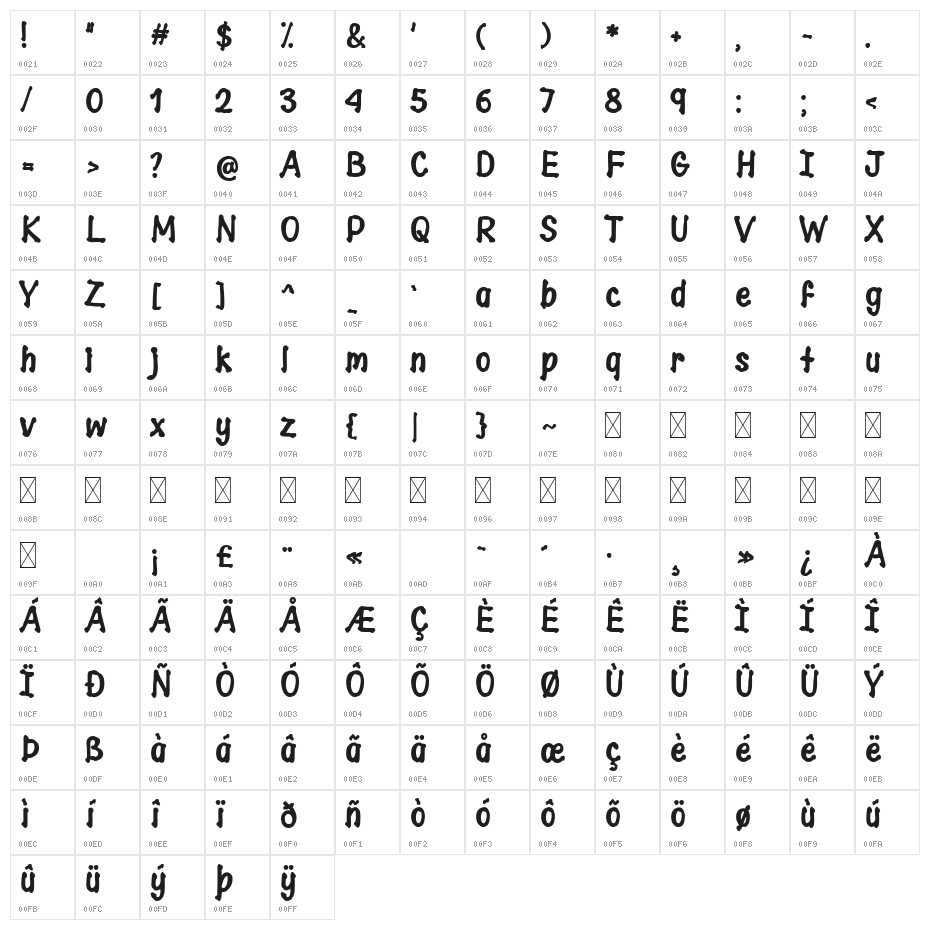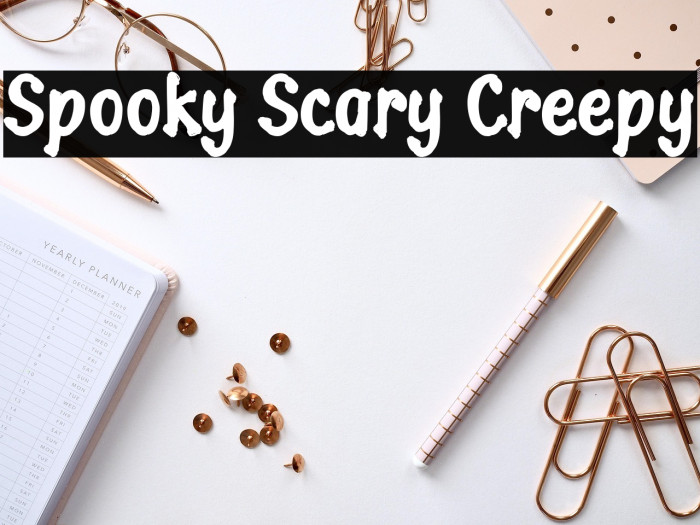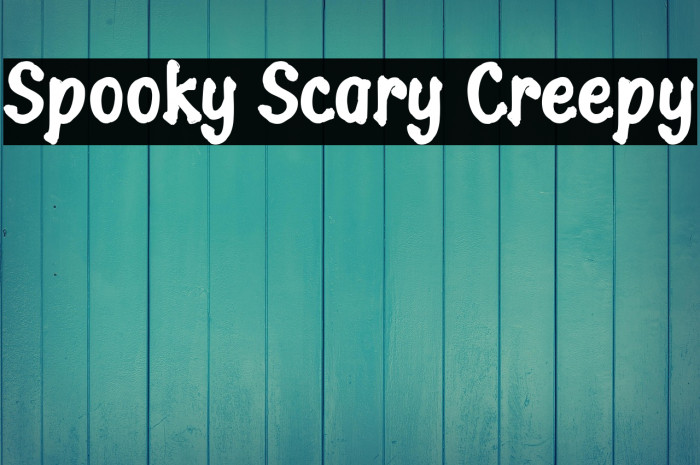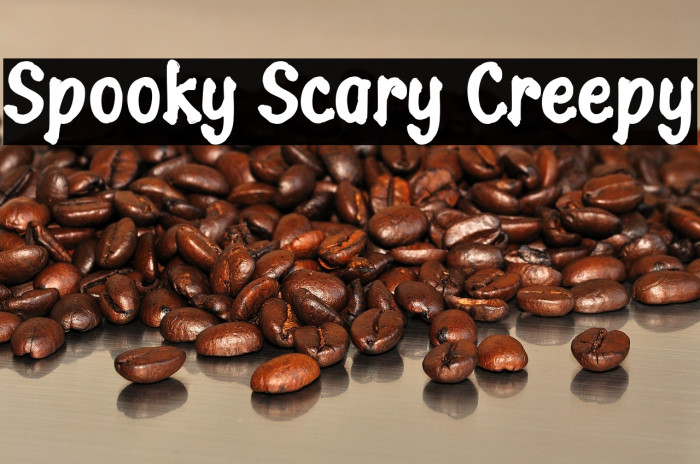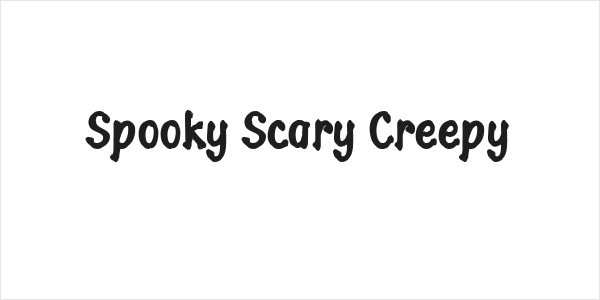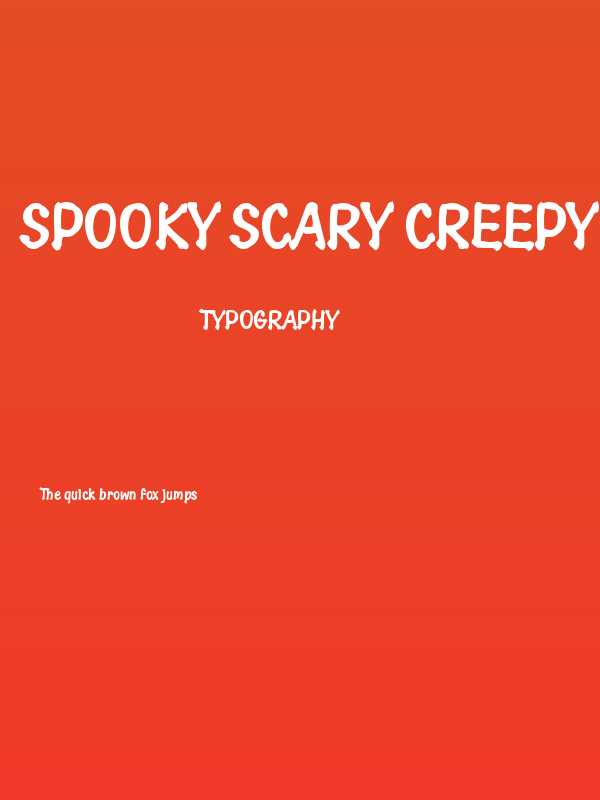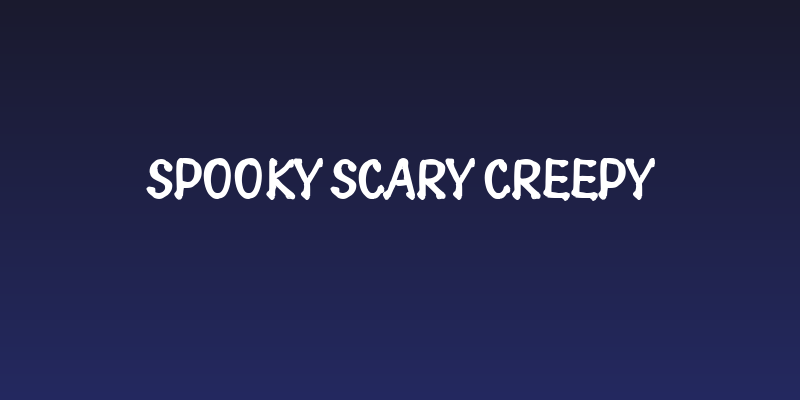
Spooky Scary Creepy Font
Spooky Scary Creepy Description
This font exudes a playful yet eerie vibe, perfect for Halloween-themed projects or anything requiring a spooky touch. The characters are bold and slightly irregular, giving them a hand-drawn appearance that adds to the unsettling charm. The uppercase and lowercase letters maintain a consistent style, with rounded edges and varying stroke thickness that contribute to its quirky and creepy aesthetic. The numbers and special characters follow the same design principles, ensuring a cohesive look across all text elements.
| Proposed Projects | Ideal for Halloween invitations, horror movie posters, themed party decorations, and spooky merchandise designs. |